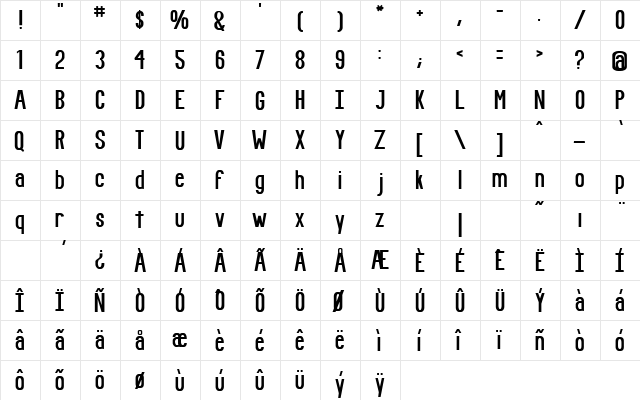
Fundamental Rush Regular
Design Context for Fundamental Rush Typeface
Fundamental Rush has an approachable, lighthearted character — its loose, expressive forms are well-suited to children's content, casual branding, and fun-first design.
Font Pairing: Pairs well with a rounded or humanist sans for body copy, maintaining the friendly tone without relying on Fundamental Rush to carry extended reading.
Pro Tip: Use Fundamental Rush at larger display sizes where its expressive character can land. Pair with a clean, simple sans for body copy to maintain readability.